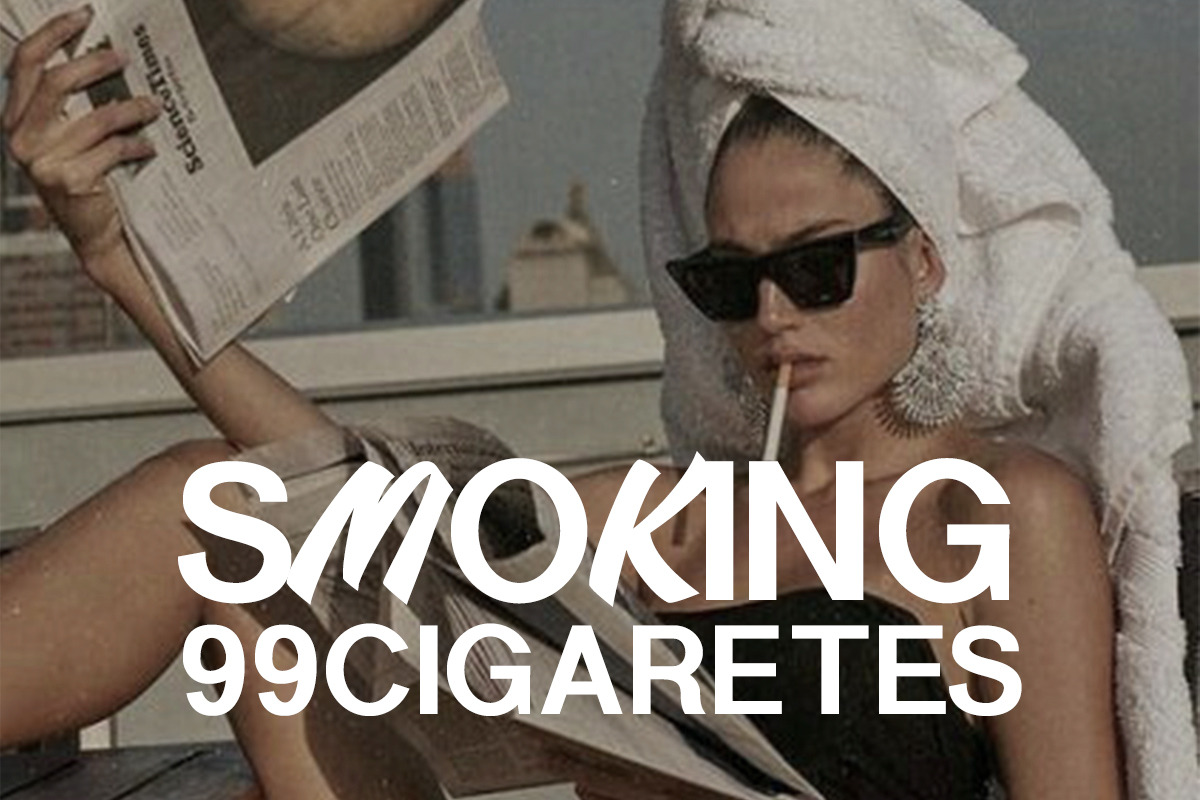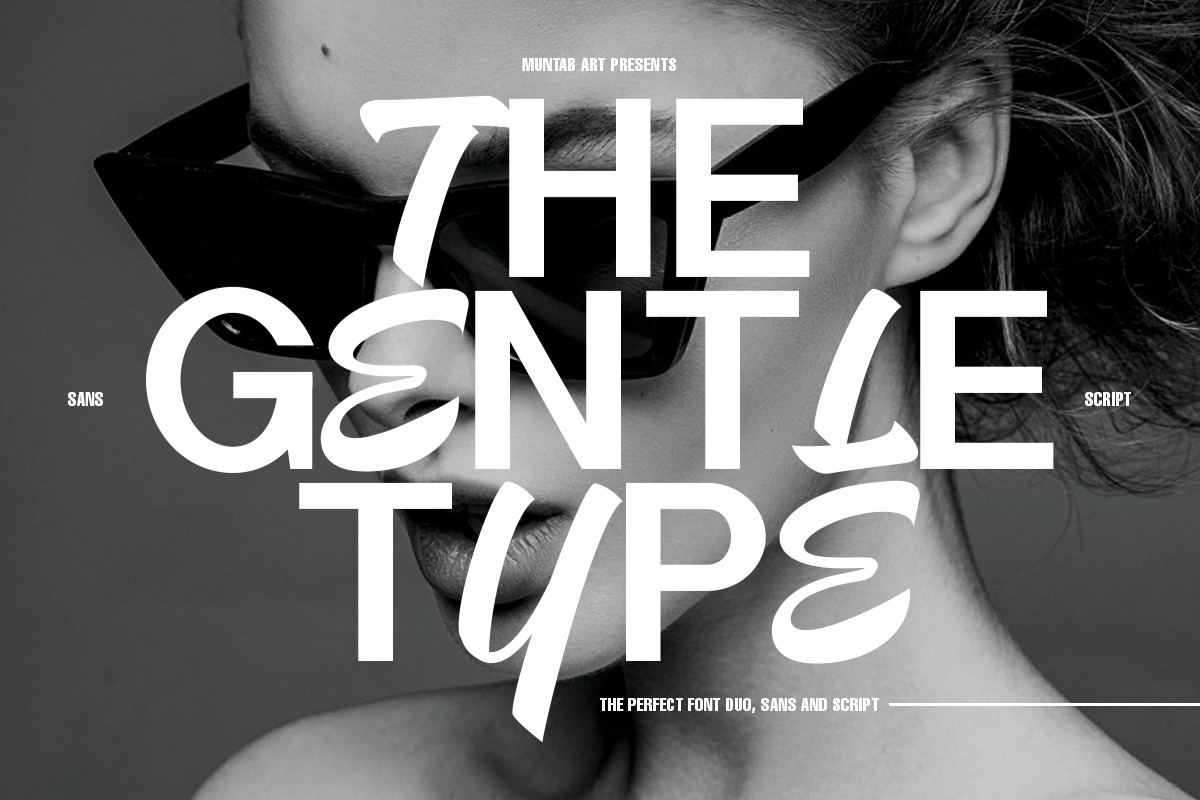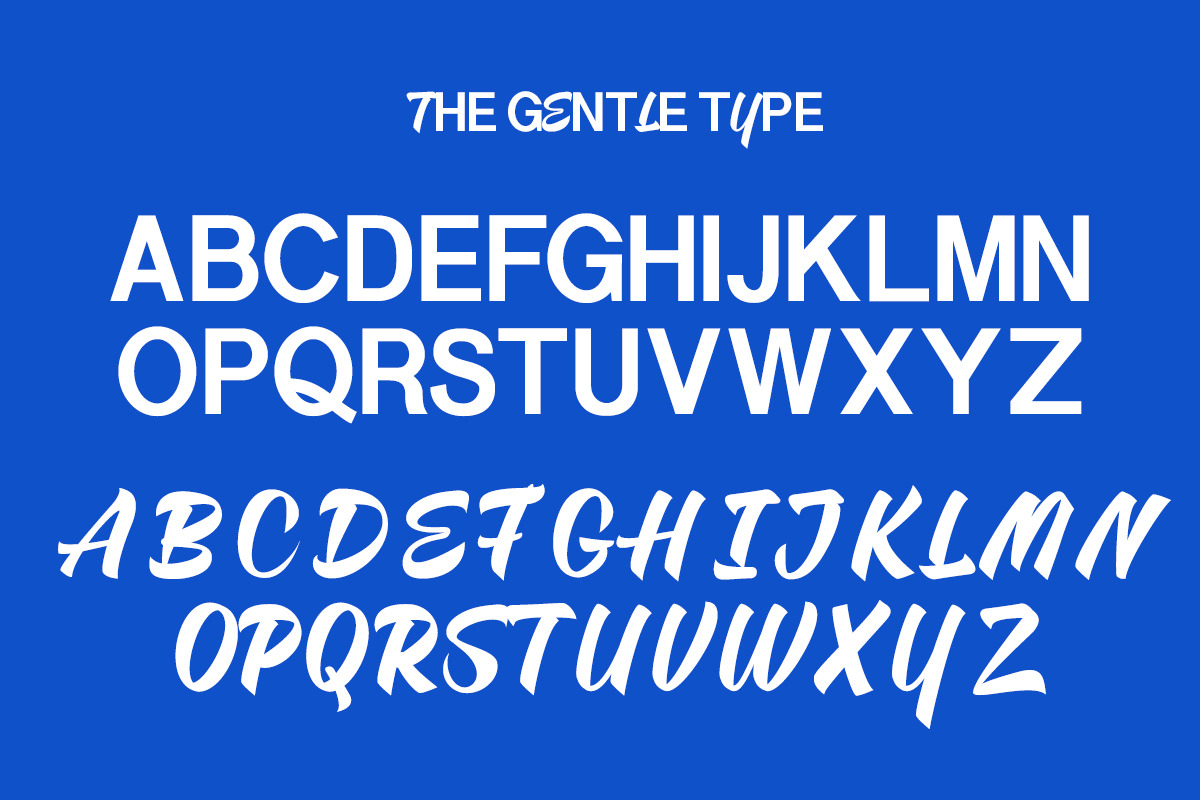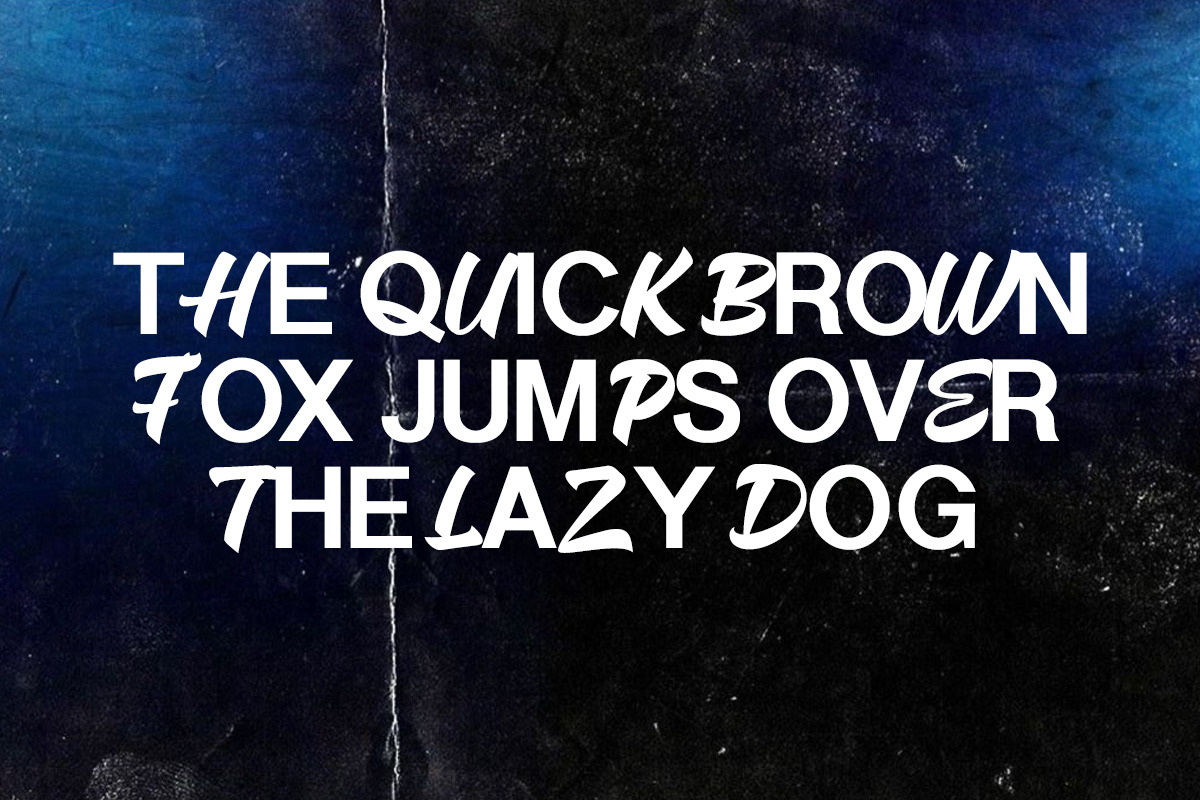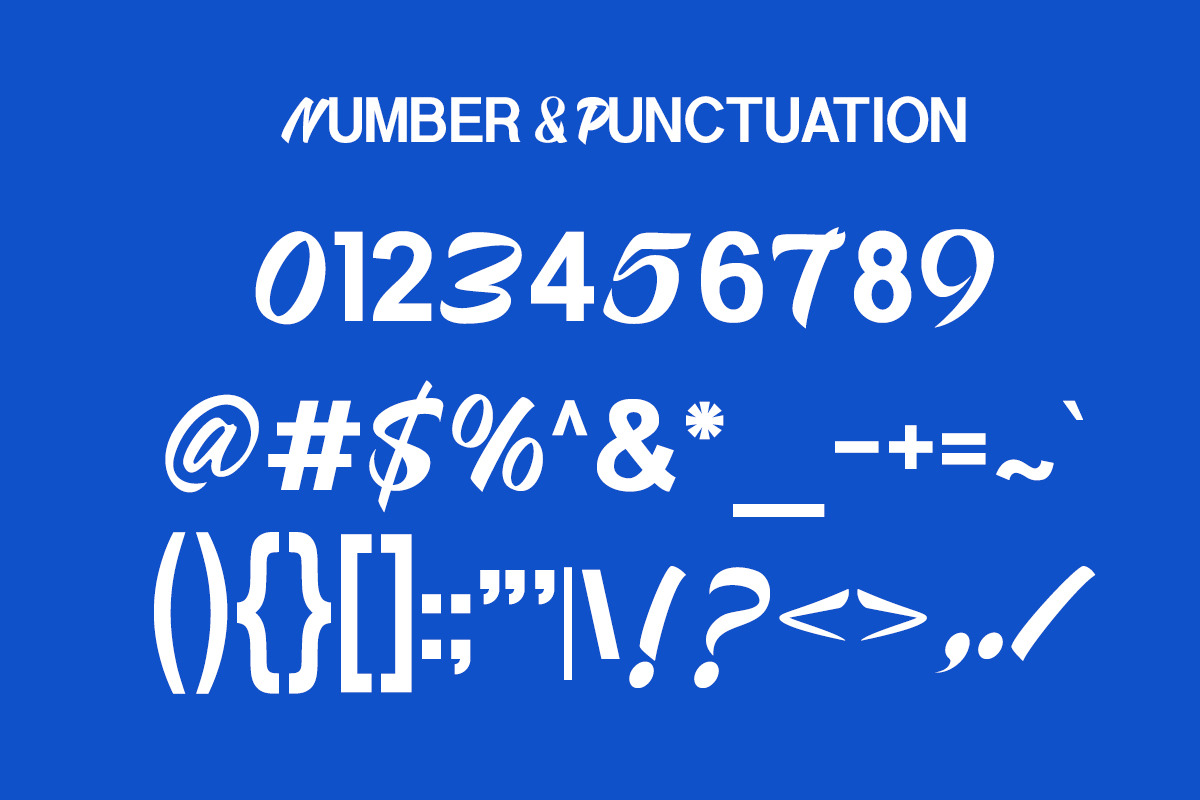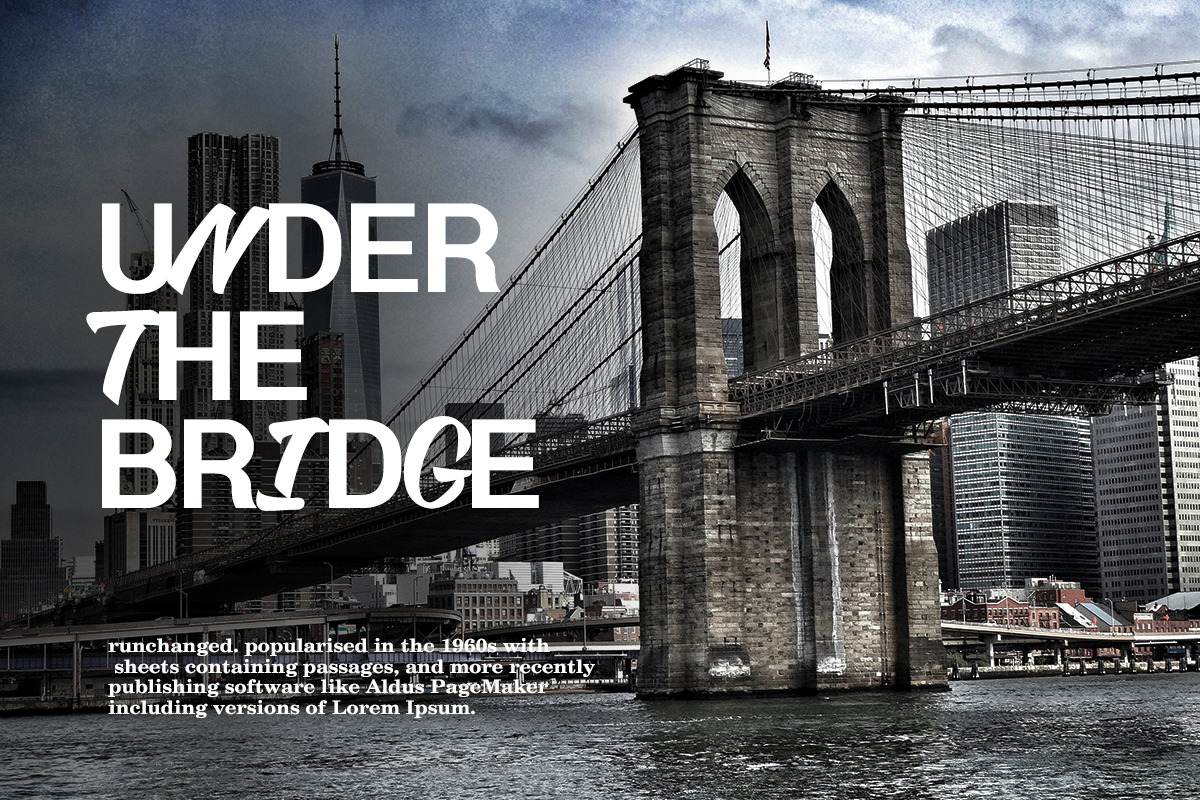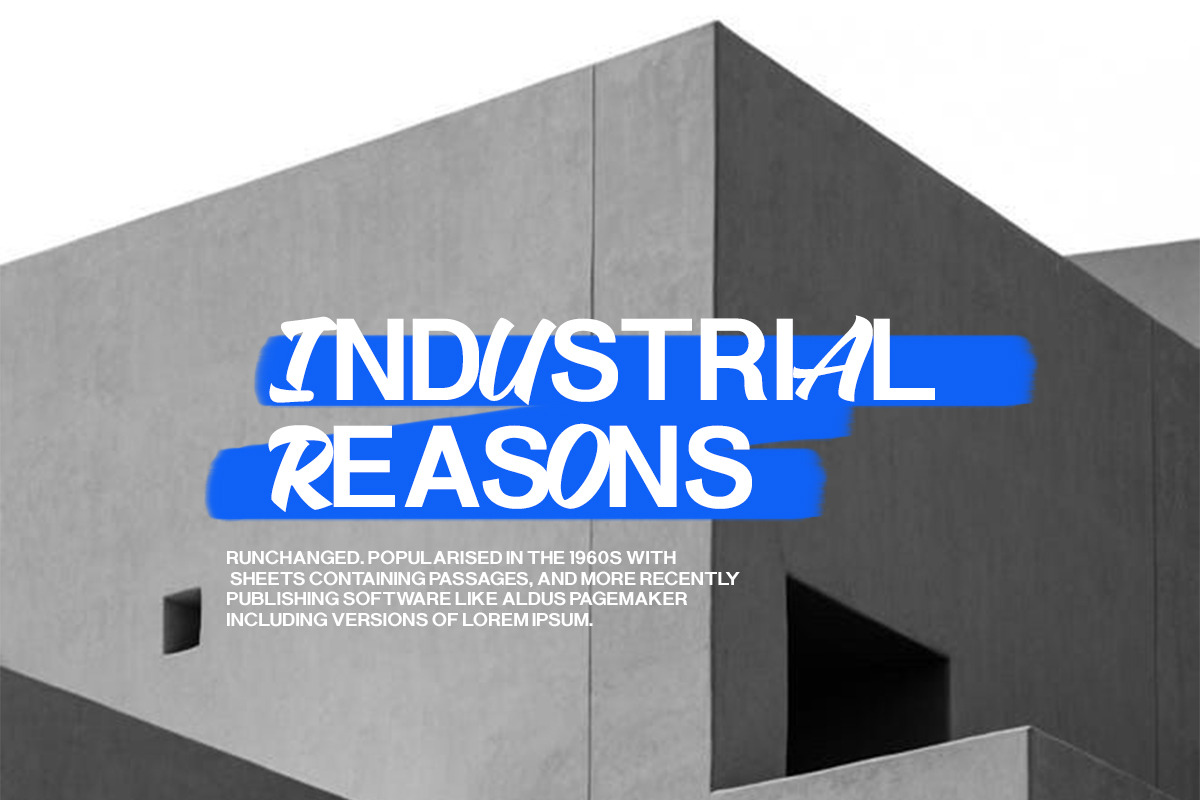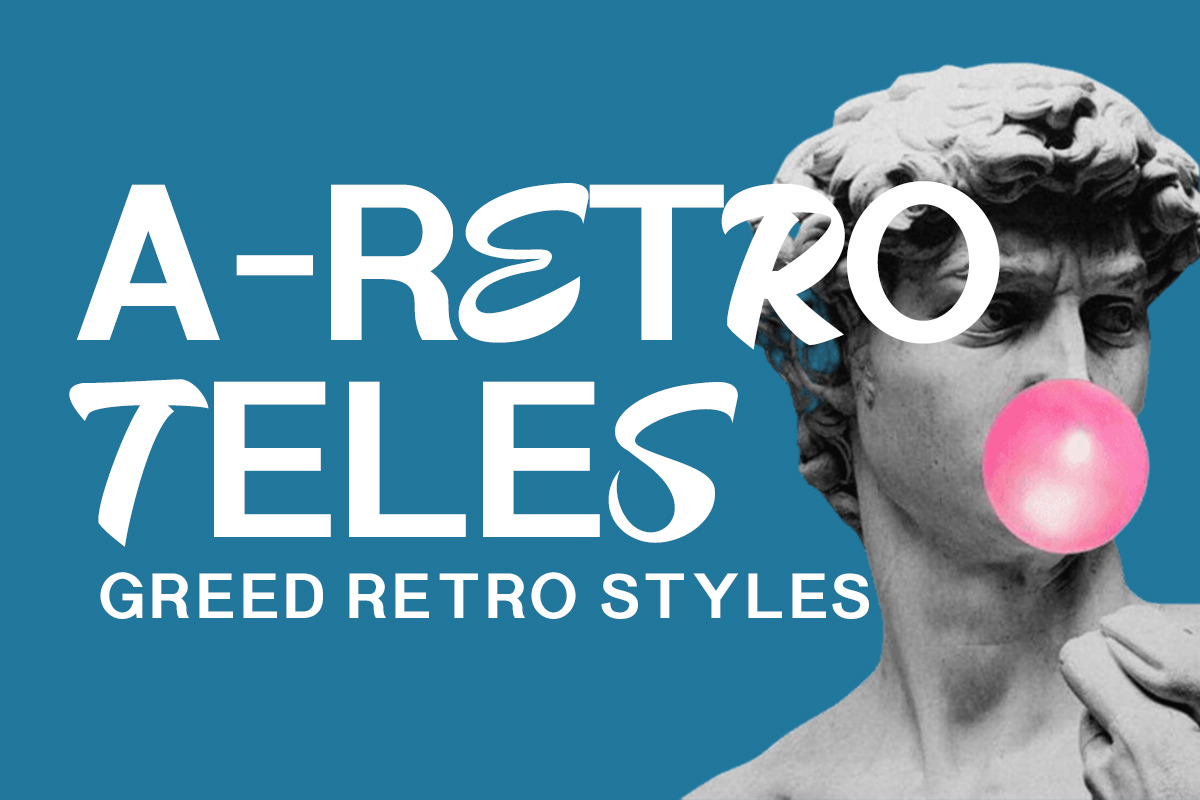
The Gentle Type Duo Font
The Gentle Type fonts include uppercase letters, numerals, a large range of punctuation. Duo font with modern stylish style. Created for poster, web design, branding, illustrations, badges, and some other works. Font Duo Hybrid Script and Sans Serif.